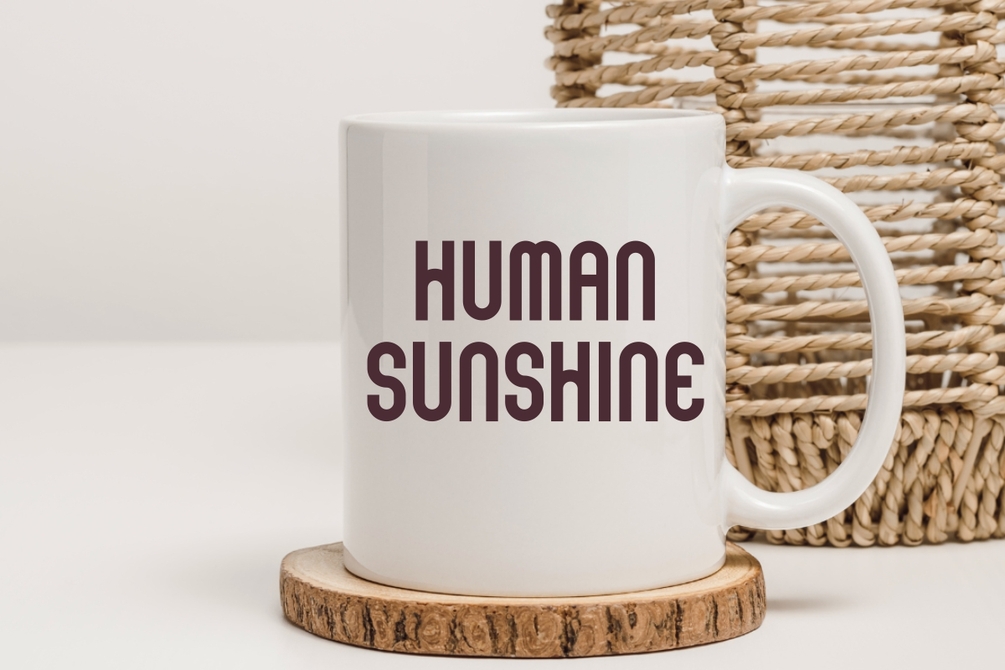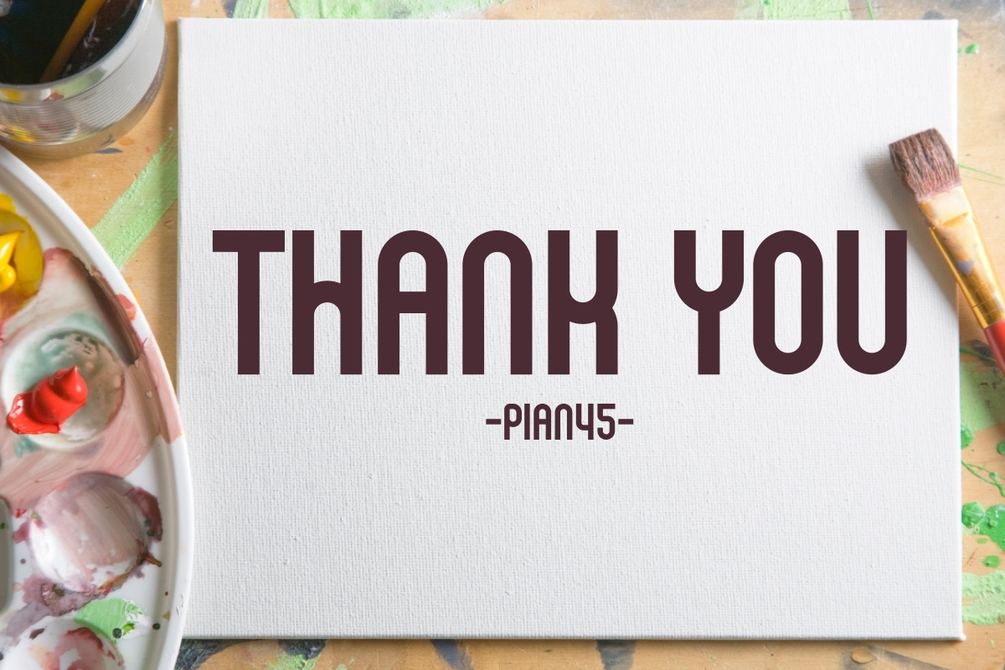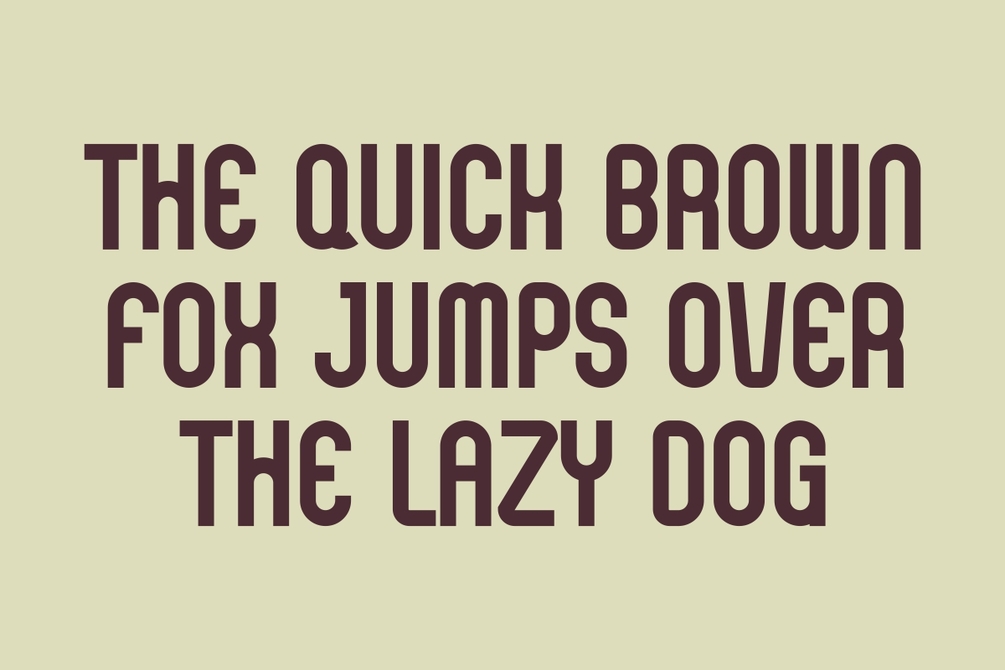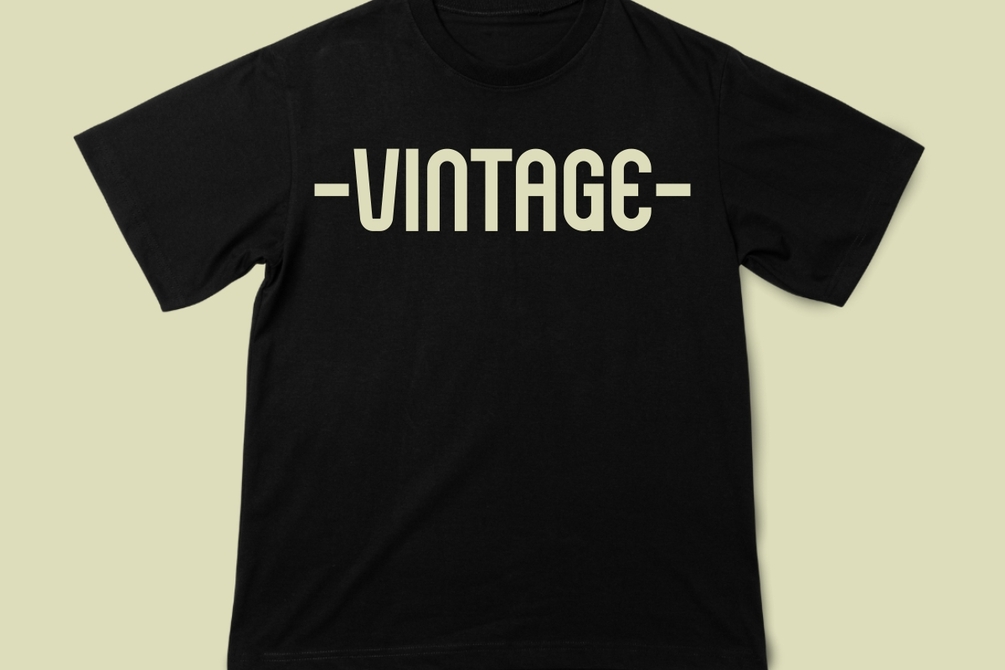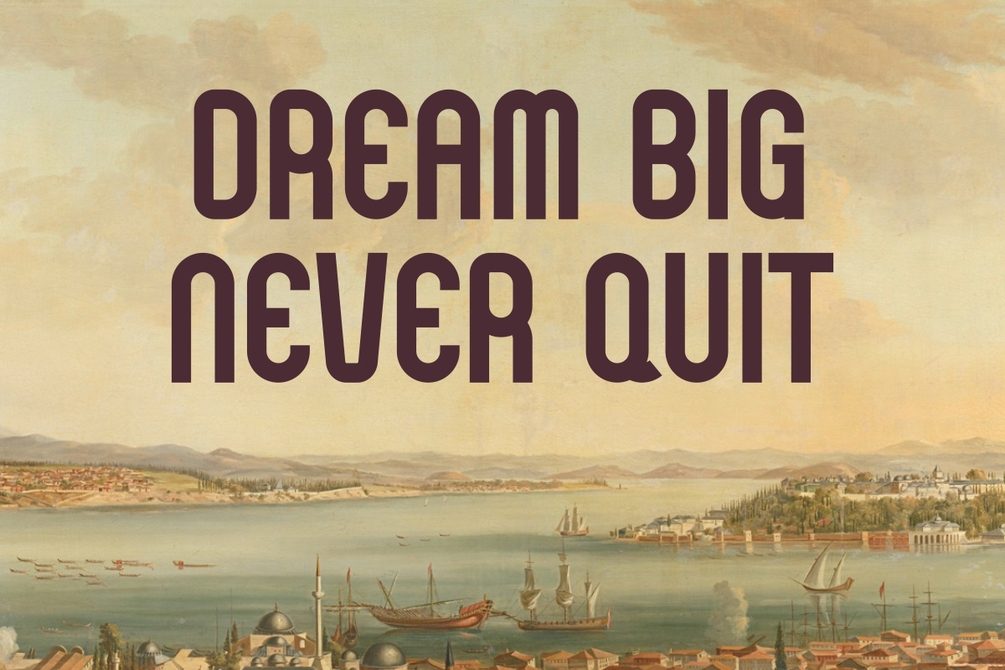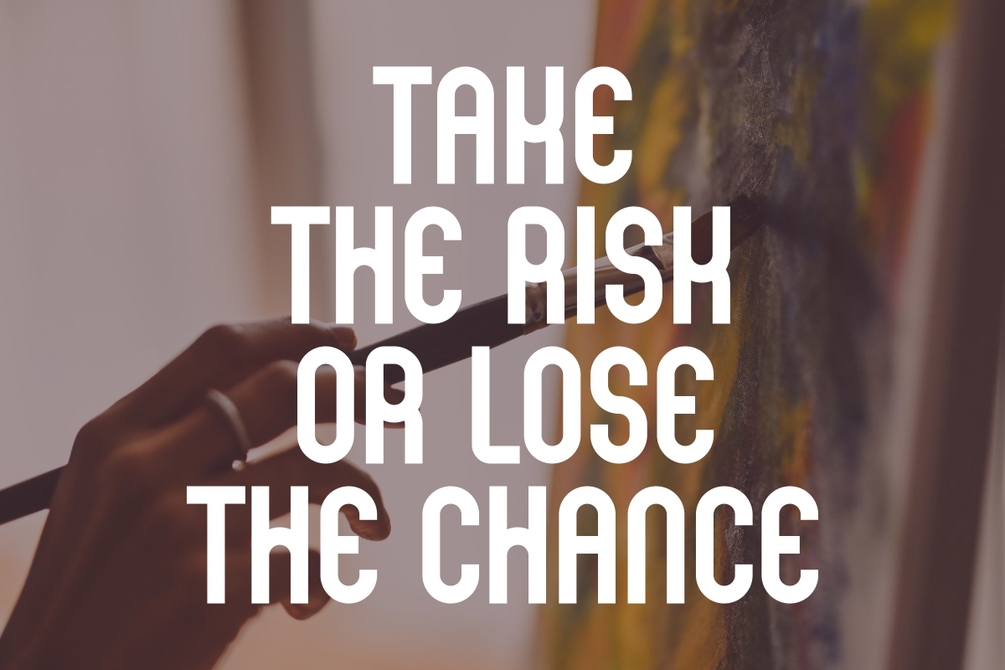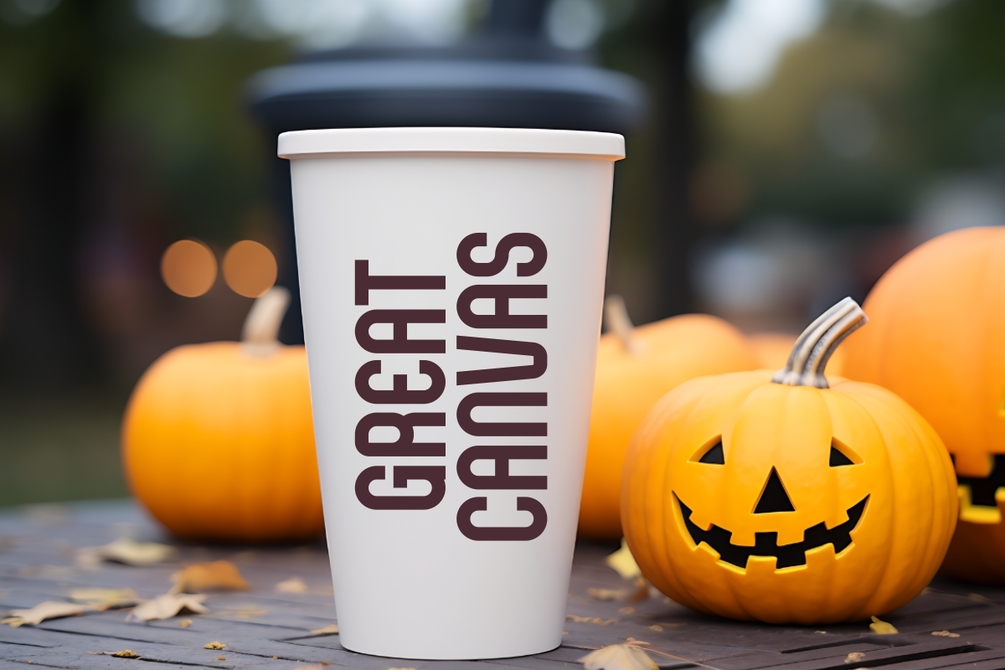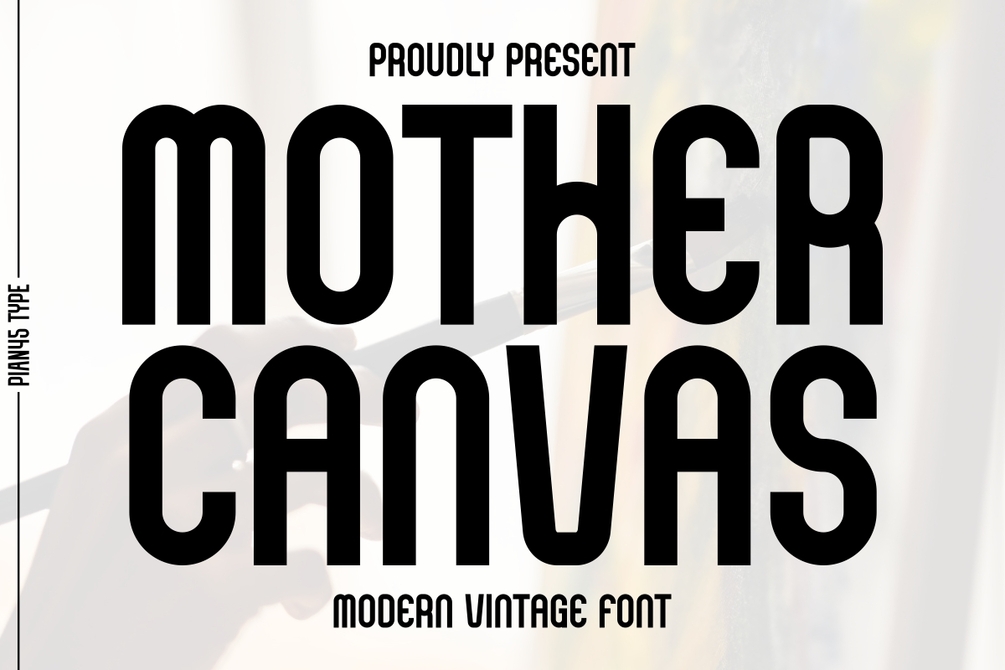
Mother Canvas - Vintage Font
Mother Canvas is a vintage modern font inspired by the classic old canvas style. This font blends timeless charm with a contemporary touch, Mother canvas adds a nostalgic yet modern flair to your creations. Perfect for t-shirts, posters, quotes, mugs, tumblers, and tote bags.